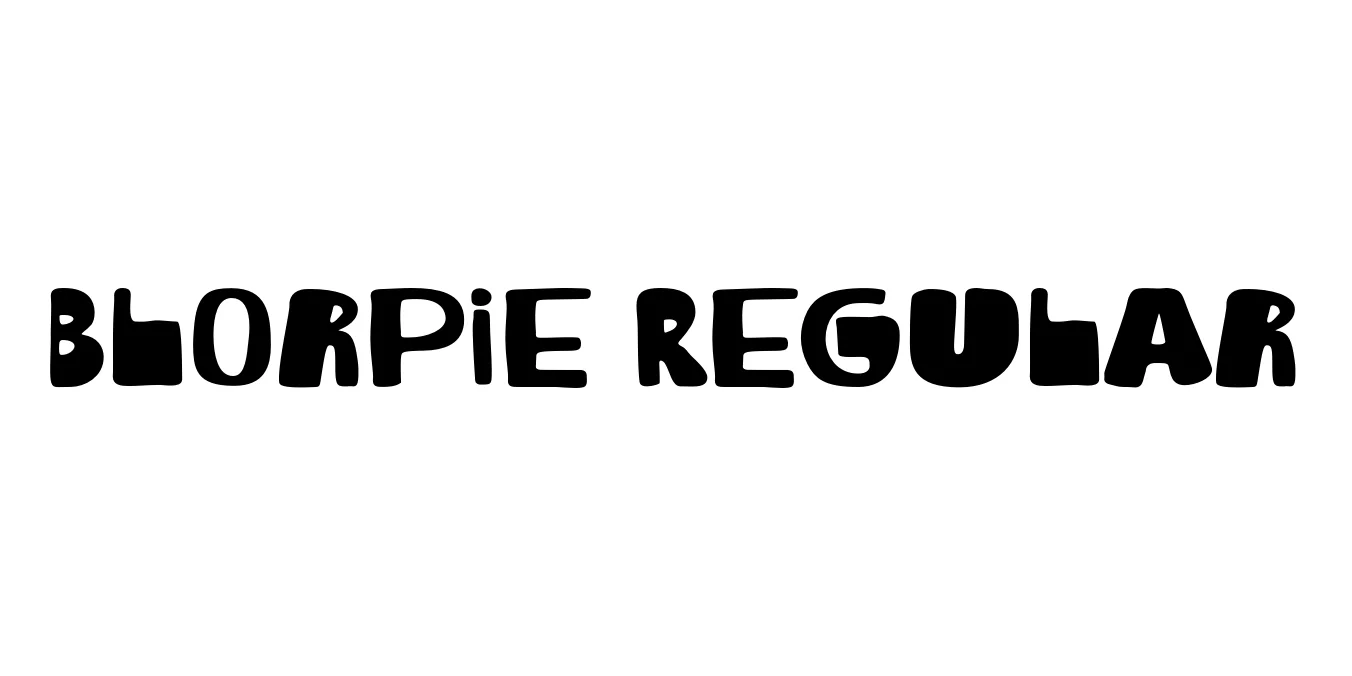
Blorpie Regular
Designed by Chequered Ink
Blorpie Regular is a whimsical and energetic display typeface that stands out with its exceptionally rounded, bulbous proportions. Drawing inspiration from the vibrant and experimental typography of the late 90s and early 2000s, it features soft terminals and a heavy weight that gives every character a sense of friendliness and visual bounce.
Its unique, dough-like appearance makes it a perfect choice for dynamic branding and illustrative projects. The font maintains high legibility despite its thick strokes, making it effective for everything from bold headlines to playful logo designs that need to convey warmth, accessibility, and a touch of pop-culture flair.
Blorpie Regular Best Uses
Ideal for fun, youth-oriented brand identities and logo designs.
Great for eye-catching Instagram graphics and engaging YouTube thumbnails.
Perfect for stickers, custom t-shirts, and physical product packaging.
Best used for decorative headers in apps or casual mobile games.